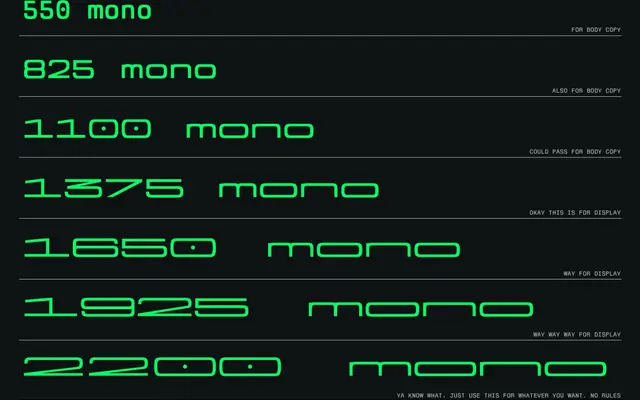
Mostest Mono
A monospaced typeface from That That Type offered across seven numeric weights from 550 to 2200.
Mostest Mono is a fixed-width typeface covering Basic Latin, Latin-1 Supplement and general punctuation including currency symbols. Seven weights are available, named numerically from 550 to 2200, giving a wide range from light to heavy. The glyph set is functional and lean, suited to coding interfaces, tabular data or any setting where consistent character width is required.
Explicitly named and designed as a monospaced font, with all glyphs sharing a fixed width. The numeric weight naming system (550 through 2200) suggests a variable or multi-weight mono family.